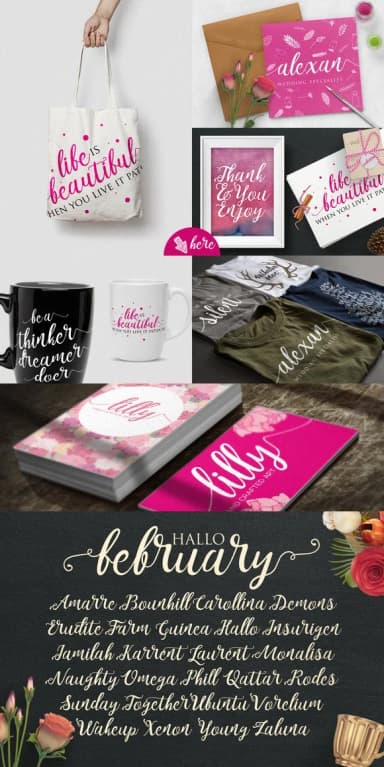
About Noelan Font
Noelan Font by ndroadvertising is a flowing script typeface that combines hand-lettered authenticity with refined letterforms, striking a balance between personal warmth and polished sophistication. The typeface's graceful strokes and smooth character connections make it well-suited for design projects that benefit from an artistic, human-drawn quality without sacrificing legibility or modern sensibility.
This script works particularly well for wedding invitation suites, where its flowing forms complement formal event messaging and create memorable stationery pieces. It's equally effective for specialty product labels on Etsy, boutique skincare packaging, and DIY craft signage projects where a handcrafted aesthetic stands out on crowded shelves. The typeface also shines in editorial layouts, magazine headers, and social media graphics where a hand-lettered character adds personality and engagement to your content.
- Contextual swashes
Noelan Font is a script font that shines as a display or heading face. Pair it with a clean sans-serif or serif font for body text β the contrast creates a clear hierarchy while the two styles stay balanced and easy to read.